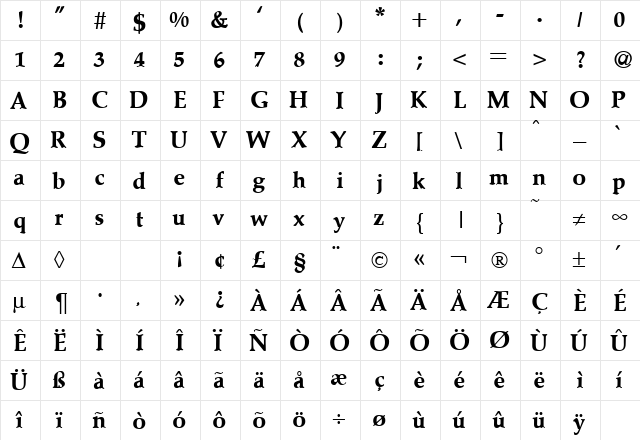
PalazzoOriginal Bold
Design Context for PalazzoOriginal Typeface
PalazzoOriginal is a composed and adaptable typeface that performs quietly and consistently across a wide range of design contexts. Its bold stroke weight gives it real presence on the page.